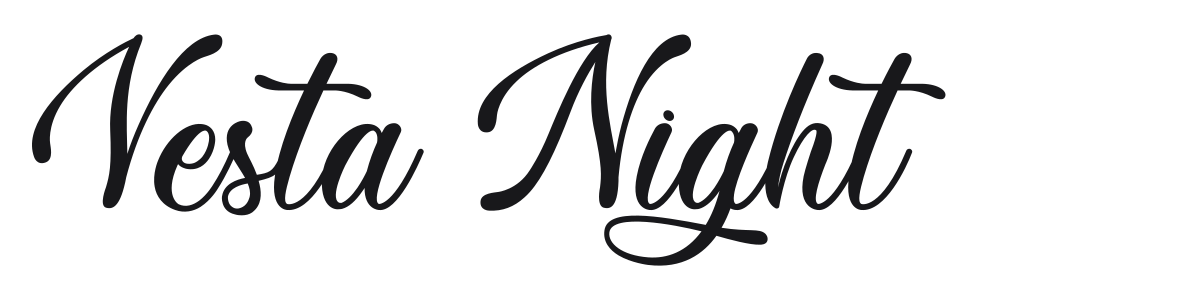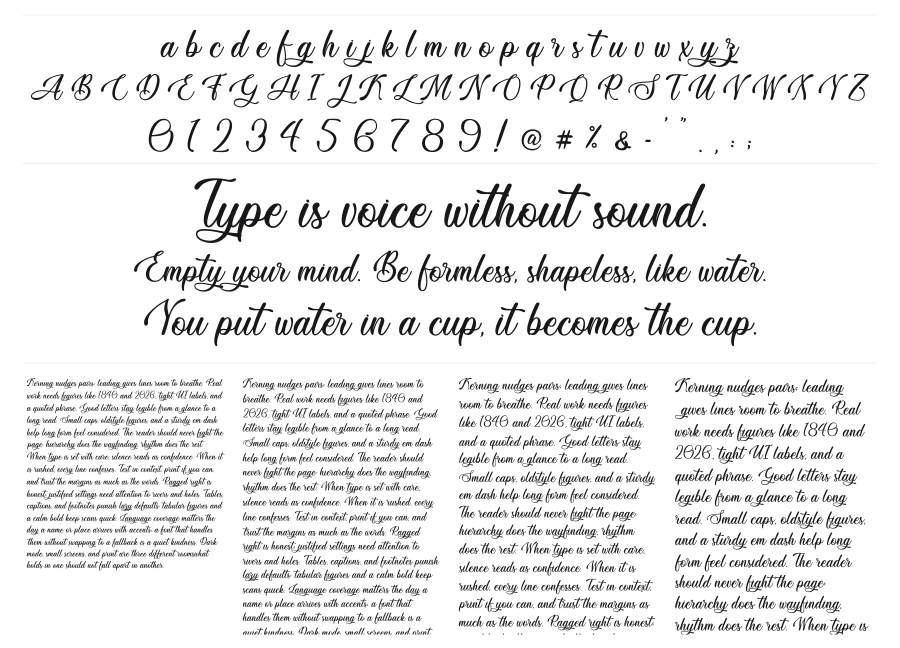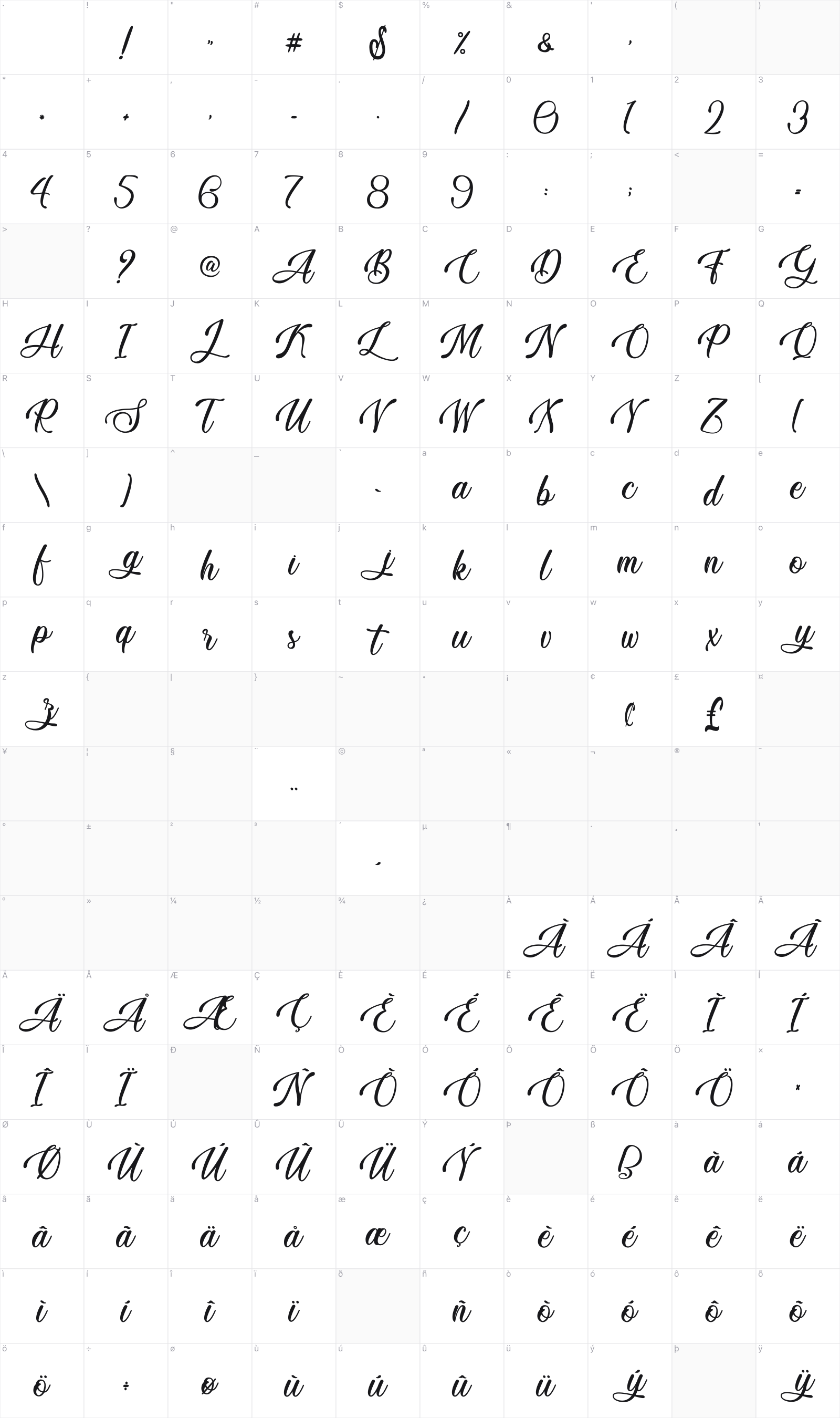
Vesta Night
Vesta Night is a bold calligraphic script with fluid connections and strong stroke contrast between thick stems and delicate hairlines. The design has a warm, hand-lettered energy that reads as romantic without being stiff. It suits wedding stationery, lifestyle branding, and packaging where a personal, crafted touch matters.